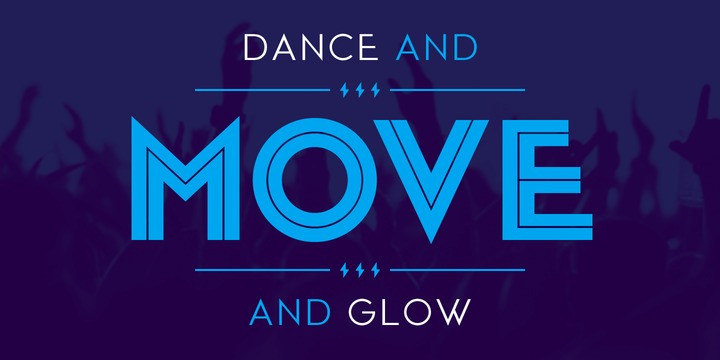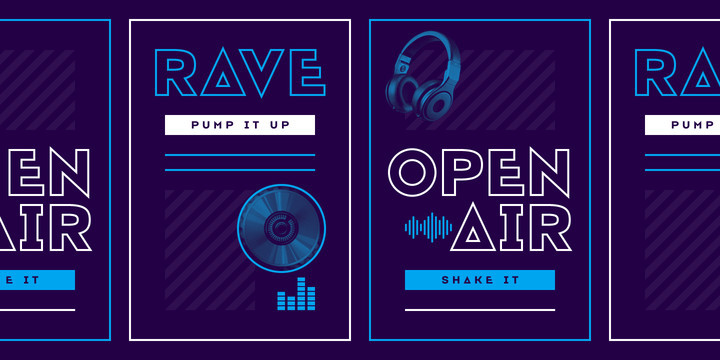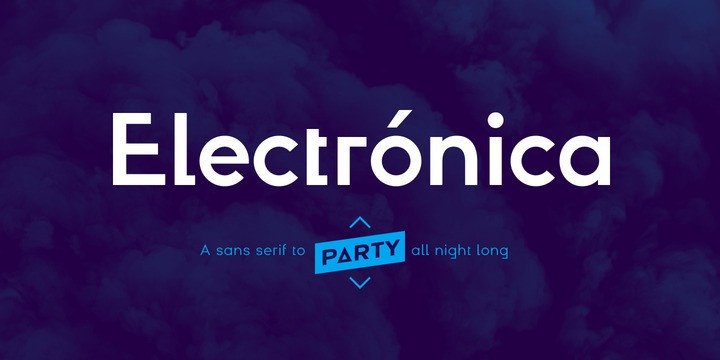
Electronica Sans Font Family
Electronica Sans Font Family has been designed for Graviton Font Foundry by Pablo Balcells in 2019. It is a rounded, geometric sans serif typeface with display details and sharp, playful shapes for a fun and laid back usage. Electrónica has been conceived to be most suitable for logos, headlines and display design pieces as well as short length text blocks.